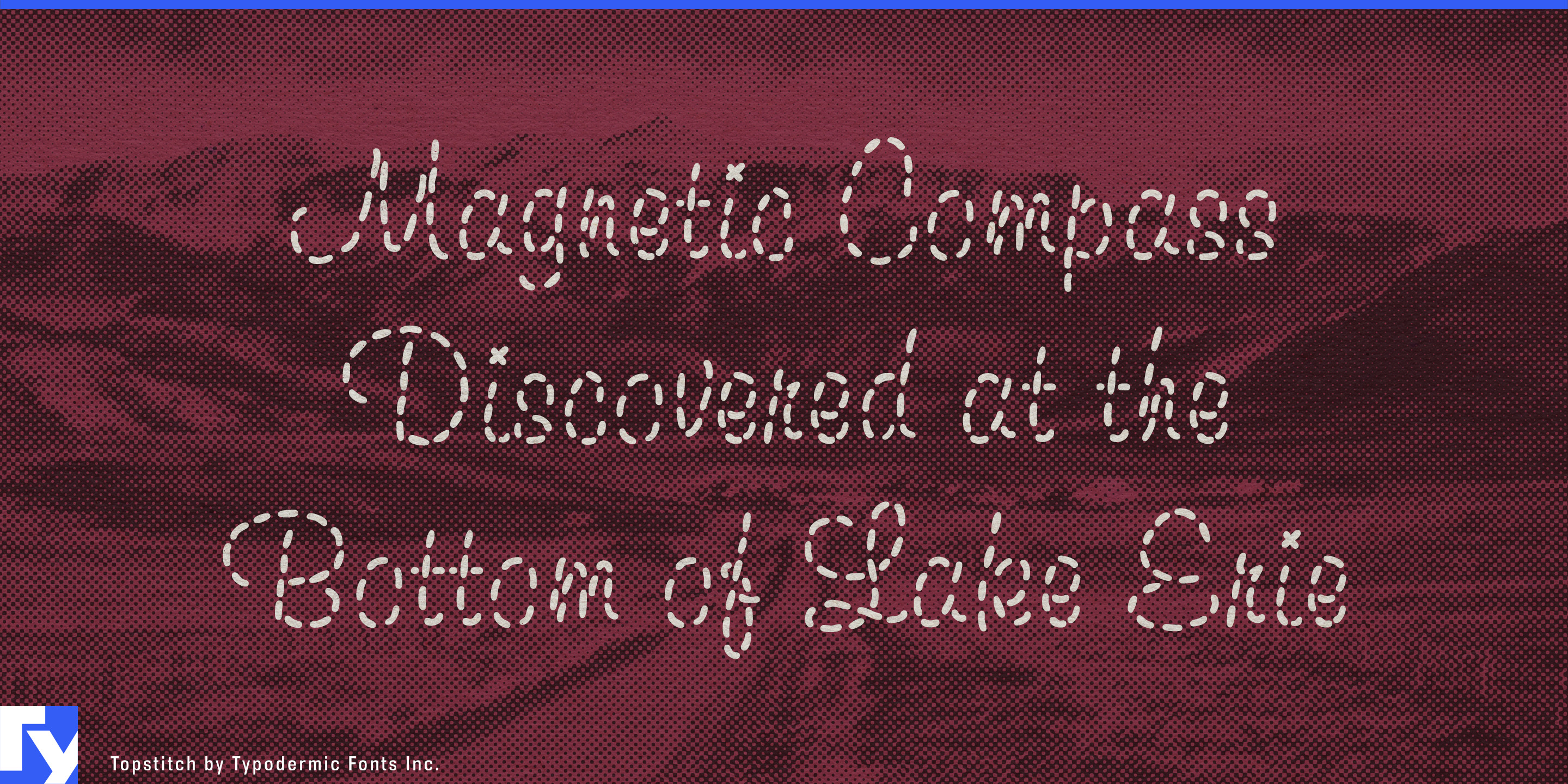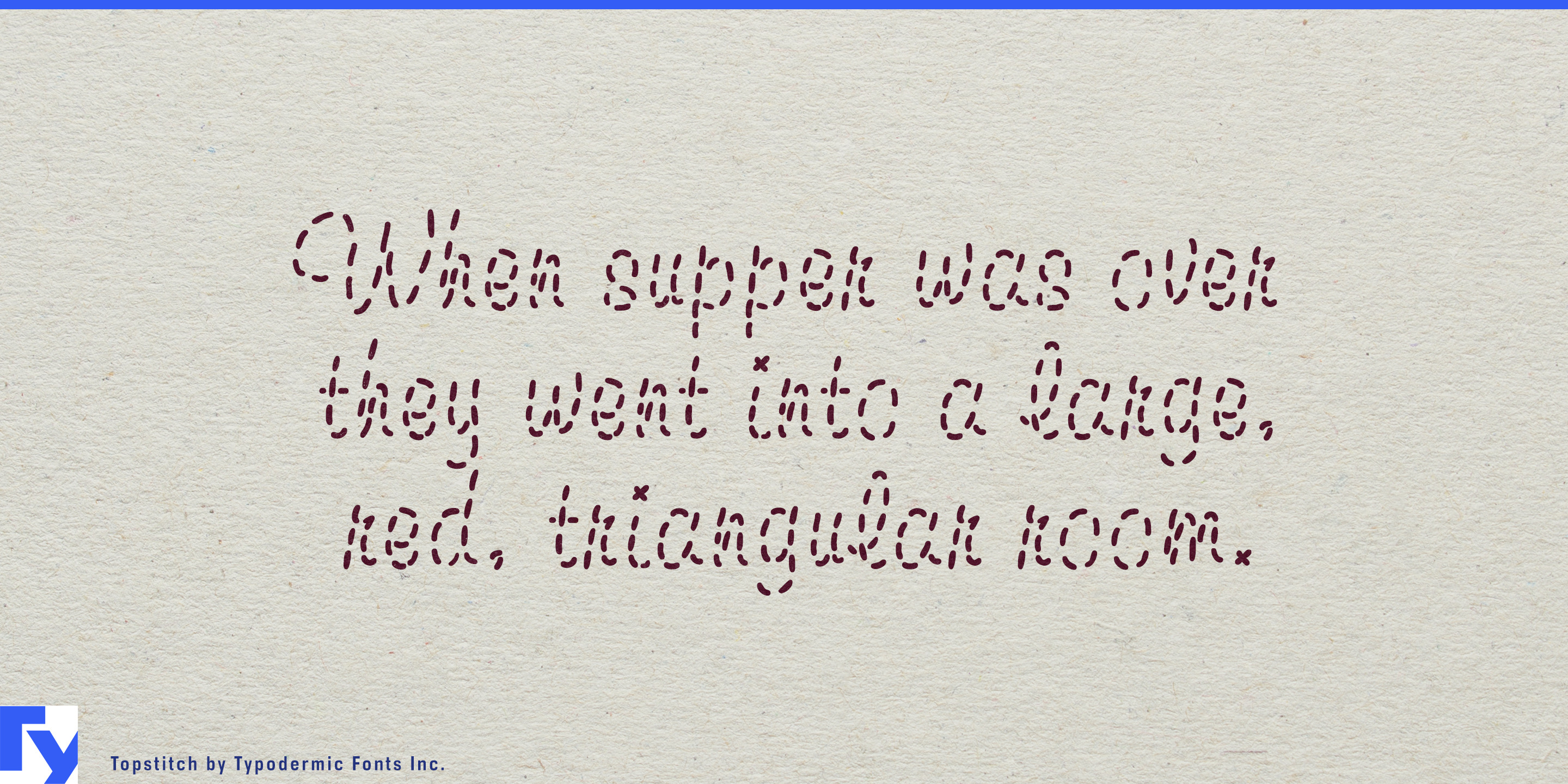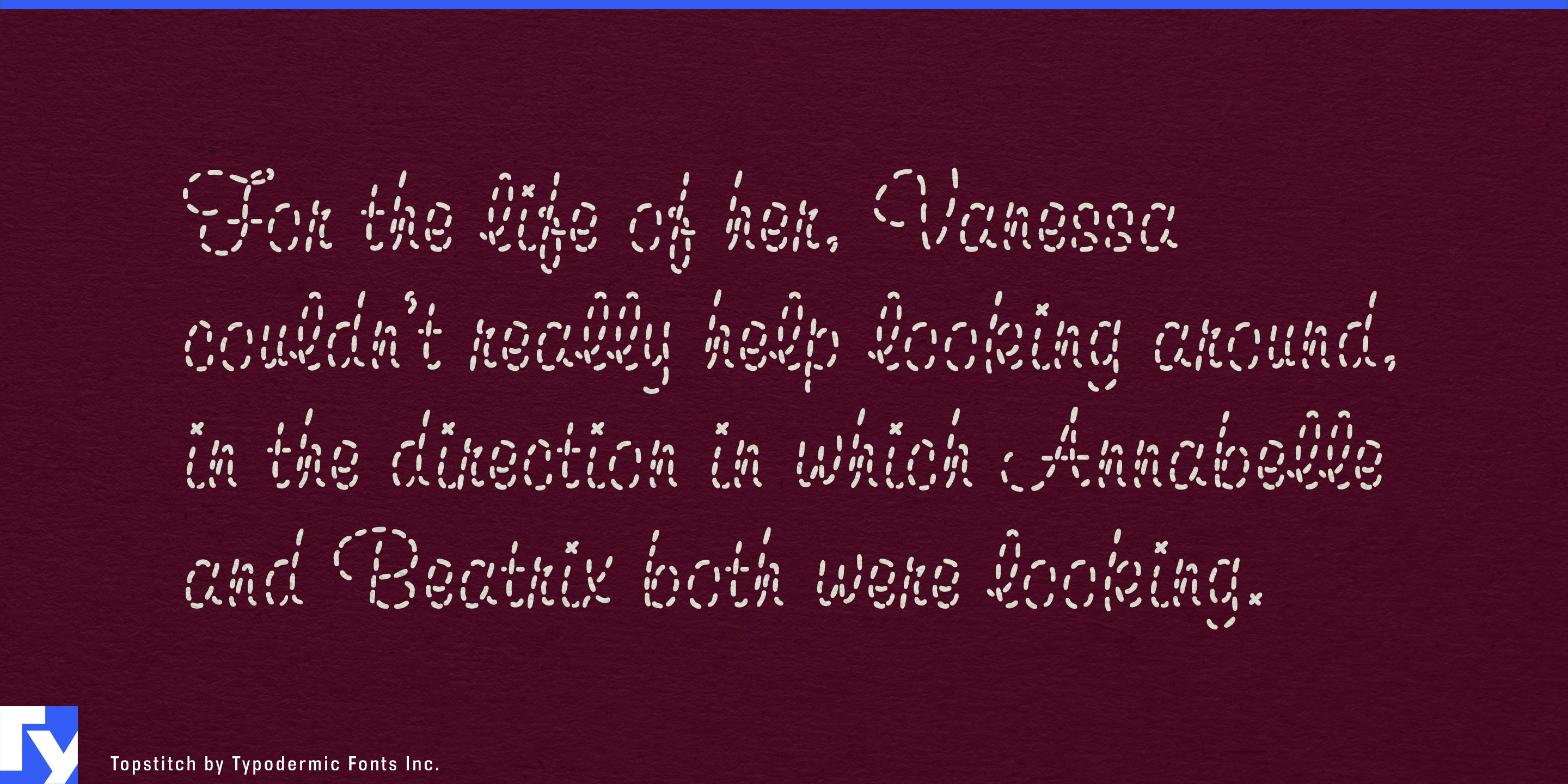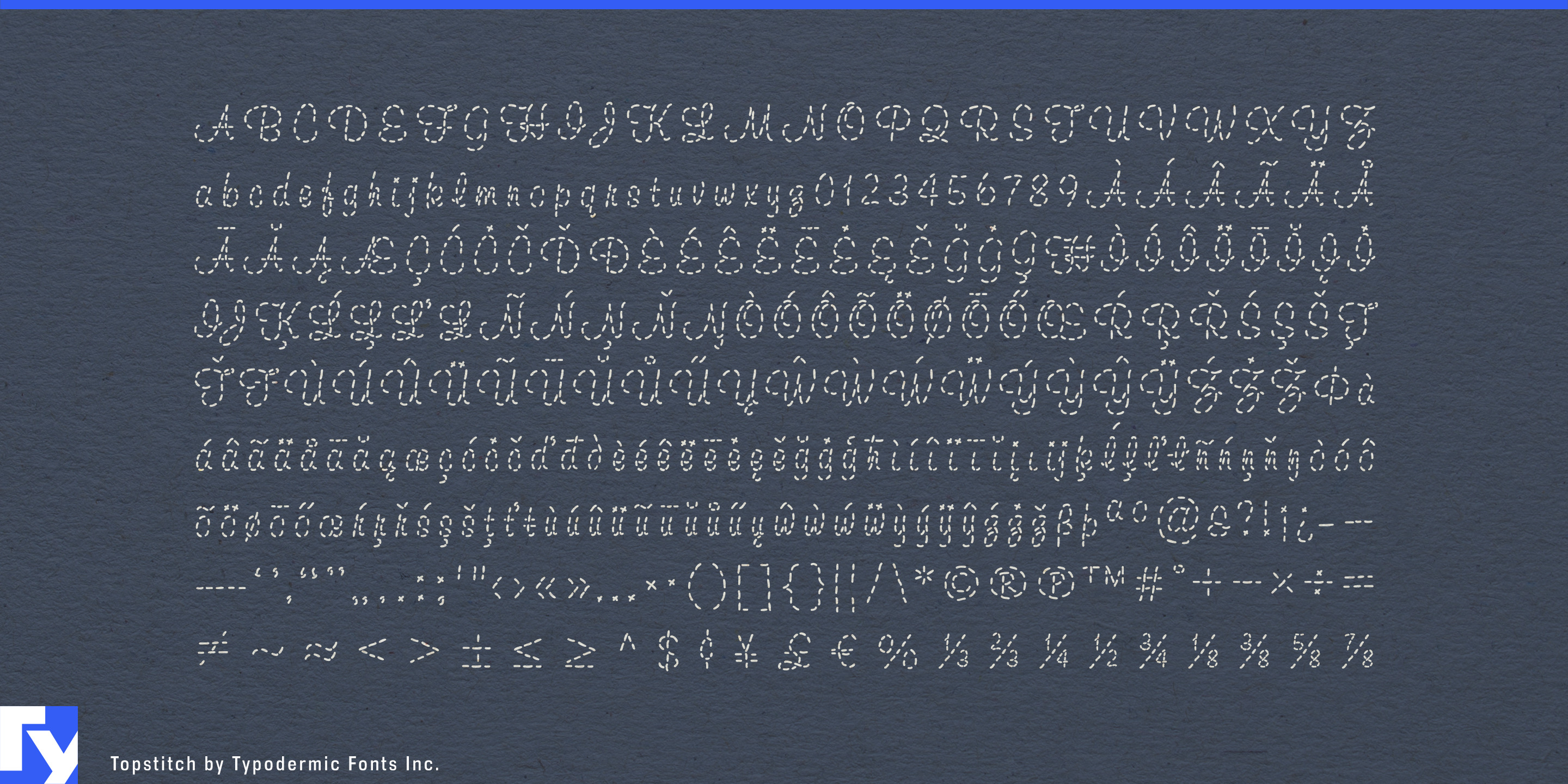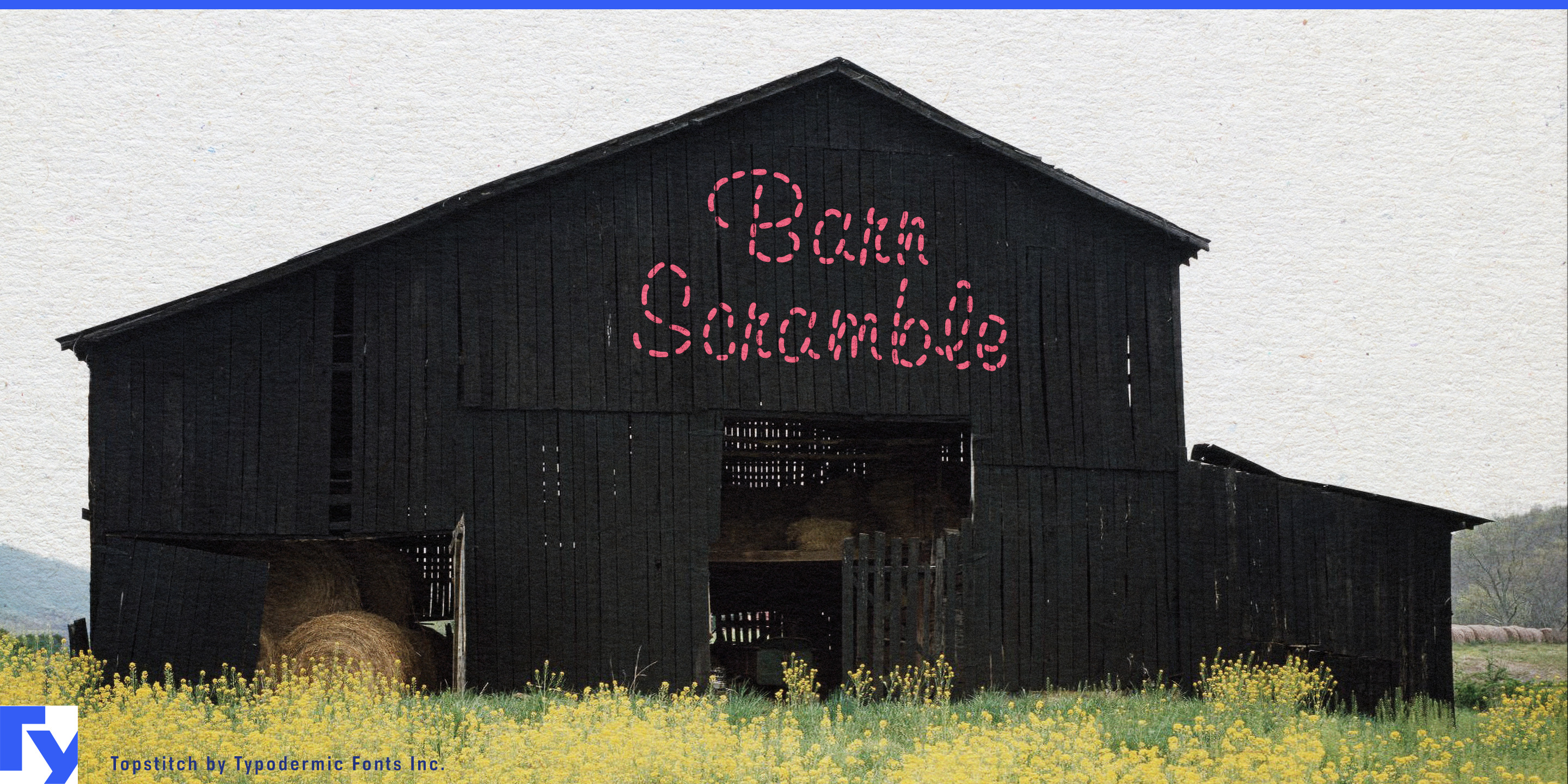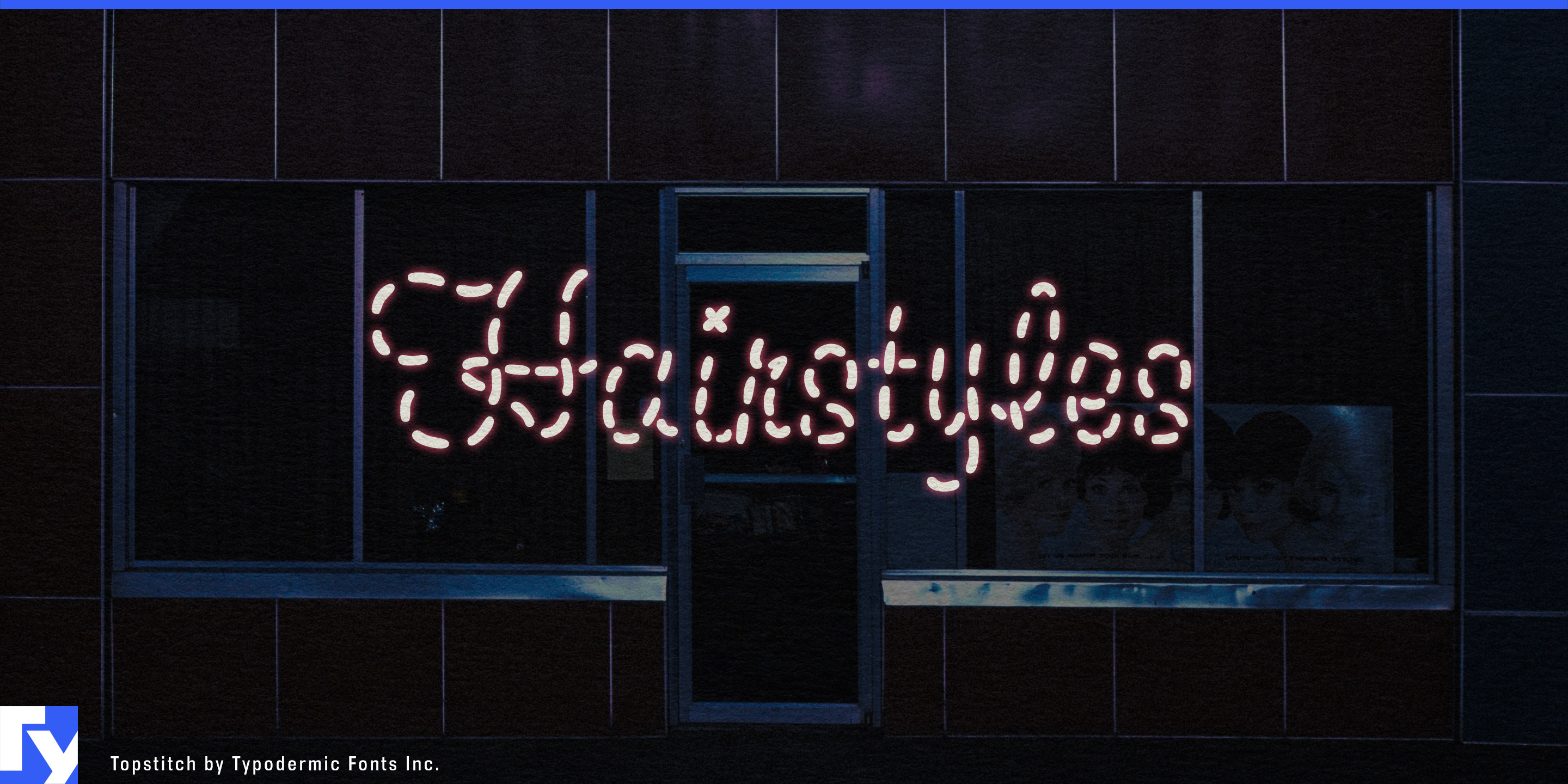
Topstitch isn’t here to shout; it’s here to sew. Each letter is loosely threaded with the uneven edges, soft curves, and imperfect charm of real hand embroidery. It’s a texture you can almost feel—a little wobbly, a little whimsical, and entirely human.
This isn’t an everyday workhorse. Topstitch shines brightest in small doses, when it can bring just the right amount of cozy, handcrafted warmth to your project. Use it for a short headline on a craft fair poster, a label for a homemade jam jar, or a few words stitched into a seasonal greeting card. In larger sizes and high-contrast colors, every loop and knot stands out; in smaller sizes, it melts into a subtle, tactile pattern. Topstitch loves company. Pair it with a clean sans-serif to balance its busy texture, or layer it over a fabric-like background for extra depth. It’s the typeface equivalent of a handmade quilt—something to be appreciated up close, made with care, and meant to be enjoyed in the right setting.
From sewing blogs and scrapbooking projects to artisan packaging and folk art features, Topstitch adds a thread of personality that’s impossible to fake. Use it sparingly, use it thoughtfully, and it will reward you with warmth that no vector-perfect font could match.